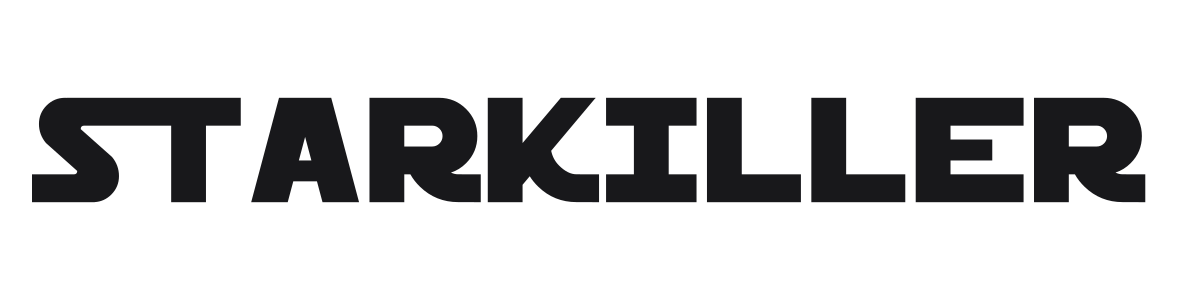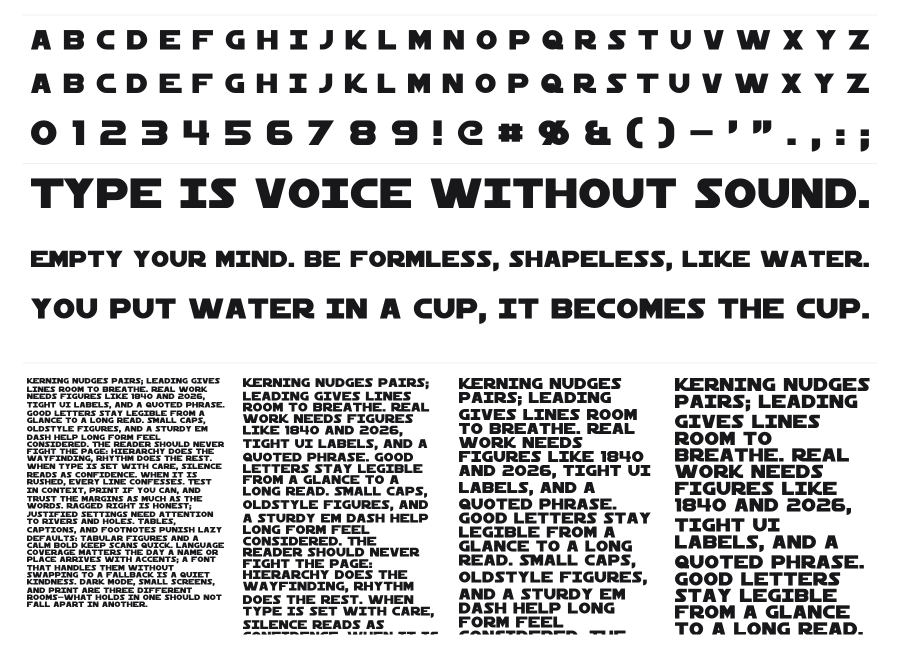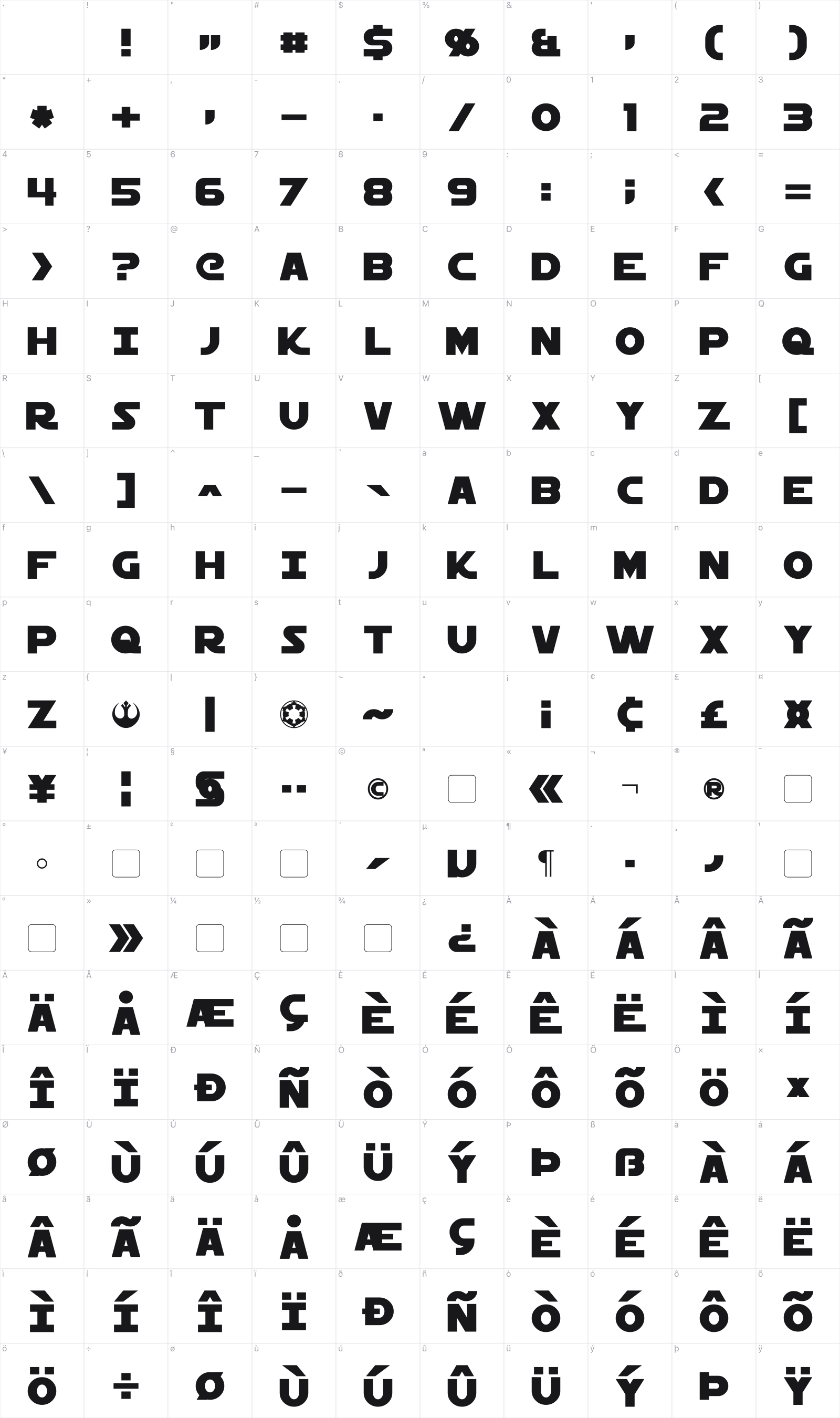
Starkiller
Starkiller is a heavy geometric sans built to evoke the era of science-fiction blockbuster title cards. Its chunky, wide characters pack tight with hard angular cuts that give it an almost stencil-like intensity. A natural choice for posters, game titles, and anything that needs to feel like an opening crawl.